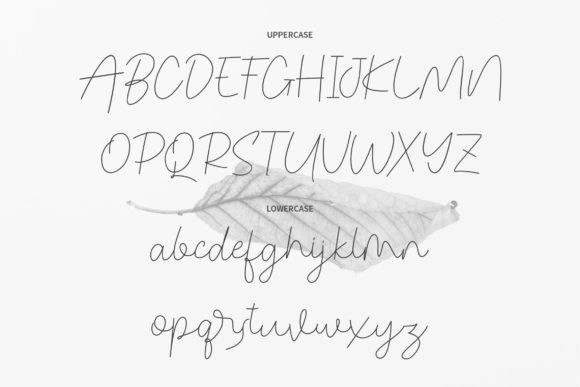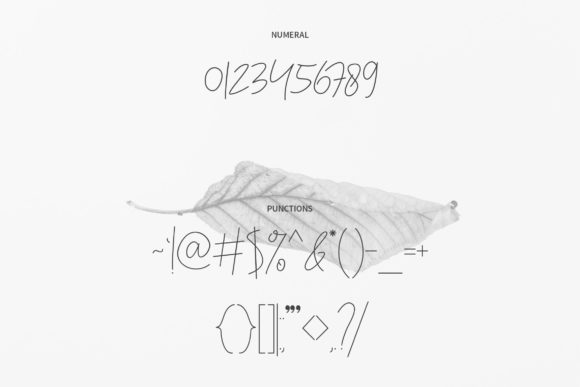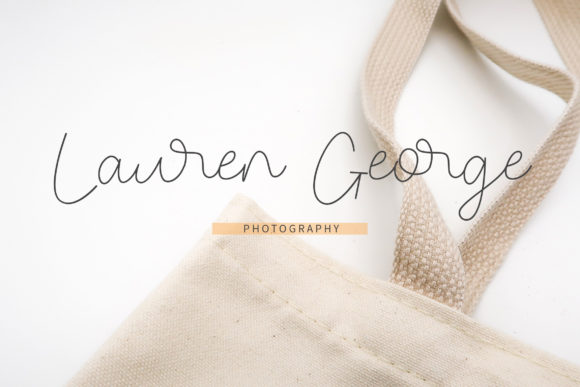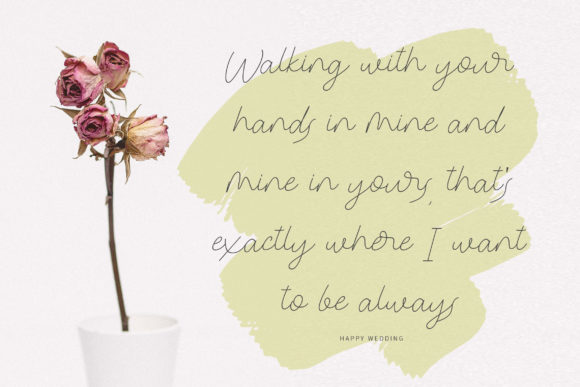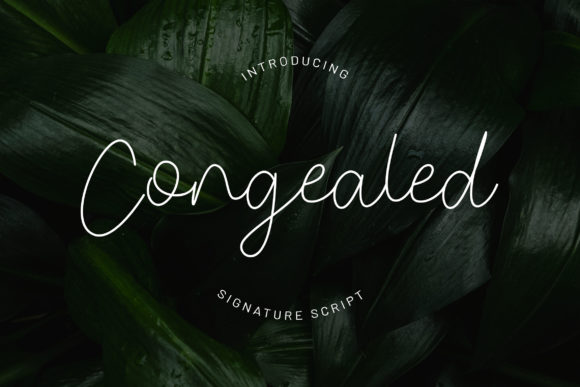
Congealed Font: Elevate Your Designs with Elegance and Versatility
In the world of typography, a well-crafted font can make all the difference in elevating your design from ordinary to extraordinary. Congealed Font is one such gem that has been making waves in the design community with its unique blend of classic calligraphy and modern flair. In this article, we’ll dive into the world of Congealed Font, exploring its features, benefits, and uses that make it an indispensable tool for designers and crafters alike.
The Essence of Congealed Font
Congealed Font is a truly outstanding handwritten font that simplifies elegance into a single, versatile typeface. Its classy calligraphic influences are evident in its fluid strokes and refined letterforms, yet it feels contemporary and fresh, making it perfect for a wide range of design applications. Whether you’re working on letterheads, titles, stationery, or any other project that requires a touch of sophistication, Congealed Font is an excellent choice.
Key Features of Congealed Font
- Handwritten elegance: Congealed Font boasts a beautiful, handwritten aesthetic that adds a personal touch to any design.
- Calligraphic influences: The font’s calligraphic roots are evident in its flowing strokes and refined letterforms, giving it a classy, sophisticated feel.
- Contemporary and fresh: Despite its classic influences, Congealed Font feels modern and fresh, making it perfect for designers looking for a unique typographic solution.
- Versatility: Congealed Font is incredibly versatile, suitable for a wide range of design applications, from formal letterheads to creative stationery.
Congealed Font offers numerous benefits for designers and crafters, including:
- Easy to read and understand: The font’s clear, elegant letterforms make it easy to read and understand, even at smaller sizes.
- Highly customizable: Congealed Font can be easily customized to fit your design needs, whether you want to adjust the font size, color, or style.
- Time-saving: With Congealed Font, you can create stunning designs quickly and efficiently, saving you time and effort.
- Unique and creative: The font’s distinctive style ensures that your designs stand out from the crowd, giving you a unique and creative edge.
Uses of Congealed Font
Congealed Font is an incredibly versatile typeface that can be used in a variety of design applications, including:
- Letterheads and titles: Add a touch of elegance to your letterheads and titles with Congealed Font’s refined letterforms.
- Stationery and greeting cards: Create beautiful stationery and greeting cards with Congealed Font’s flowing strokes and classic aesthetic.
- Branding and packaging: Use Congealed Font to create stunning brand identities and packaging designs that exude sophistication and elegance.
- Digital and print media: Congealed Font is suitable for both digital and print media, making it a great choice for designers working on websites, magazines, and other publications.
In conclusion, Congealed Font is an exceptional handwritten font that offers a unique blend of elegance, versatility, and creativity. Its classy calligraphic influences, combined with its modern flair, make it an indispensable tool for designers and crafters looking to elevate their designs. Whether you’re working on letterheads, titles, stationery, or any other project, Congealed Font is sure to impress. So why wait? Discover the beauty of Congealed Font and take your designs to the next level.